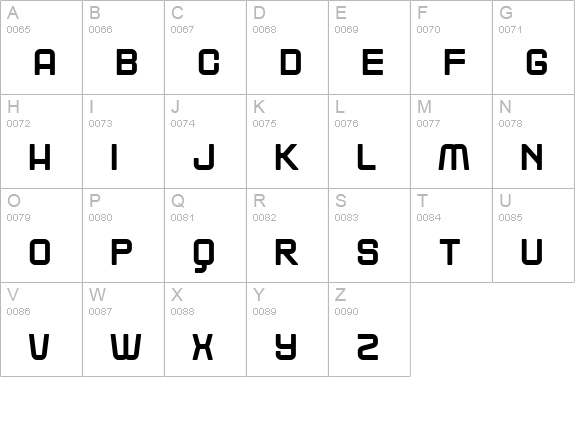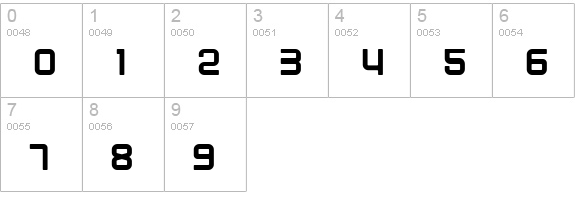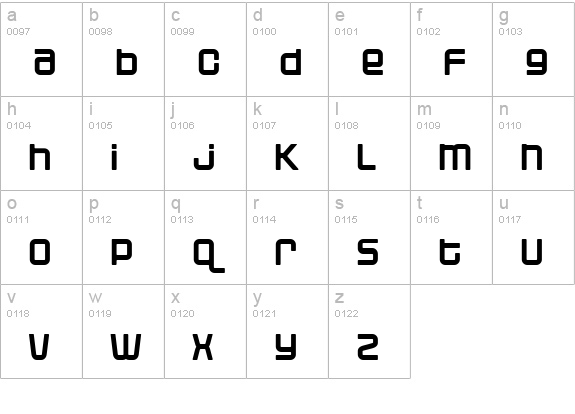
Blackjack Font Details
Introducing Blackjack font - a modern and stylish typeface that exudes elegance and sophistication. With its sleek lines and sharp edges, Blackjack font is perfect for creating eye-catching designs that make a statement. Whether you're designing a logo, a poster, or a social media graphic, this versatile font will surely elevate your project to the next level. The best part? Blackjack font is available for free download at FontsMarket.com. You can easily access this stunning font and use it in your personal and commercial projects without any restrictions. So why wait? Download Blackjack font now and add a touch of class to your designs!